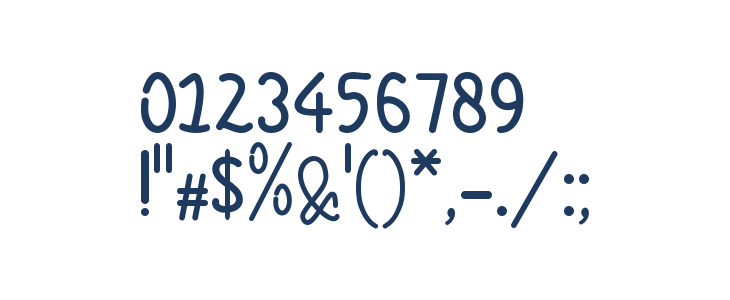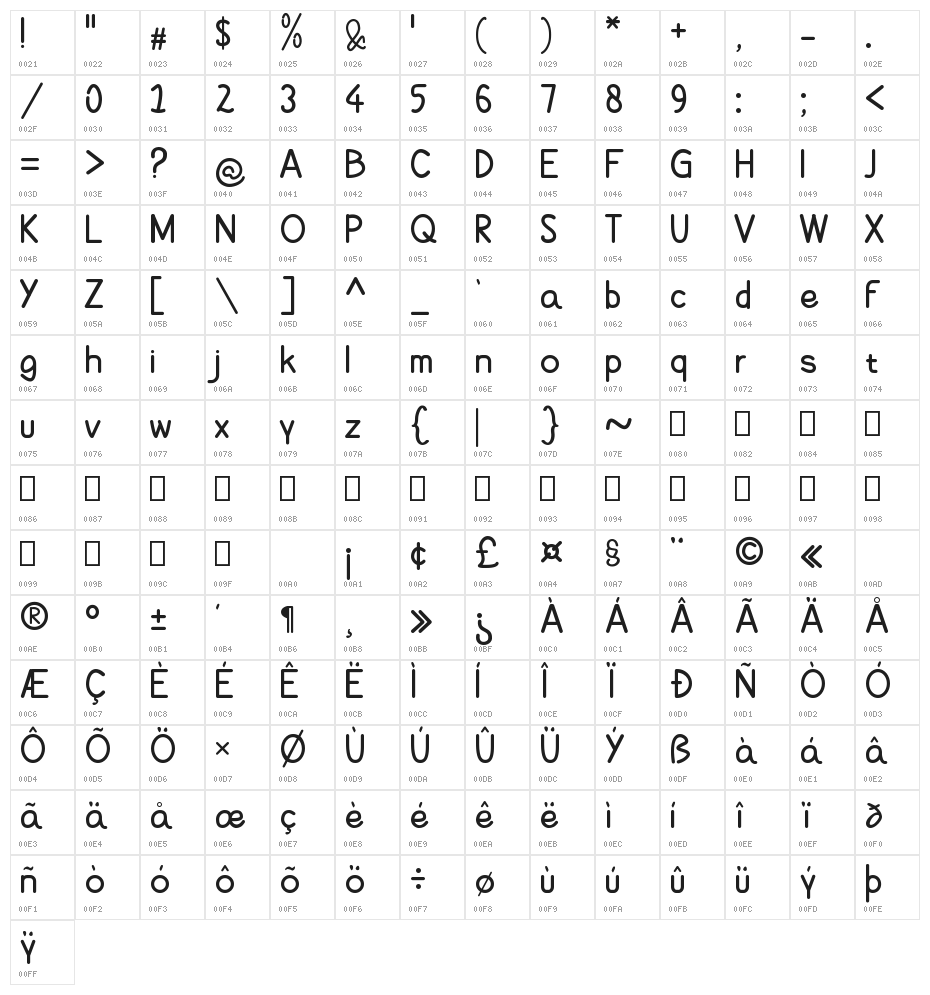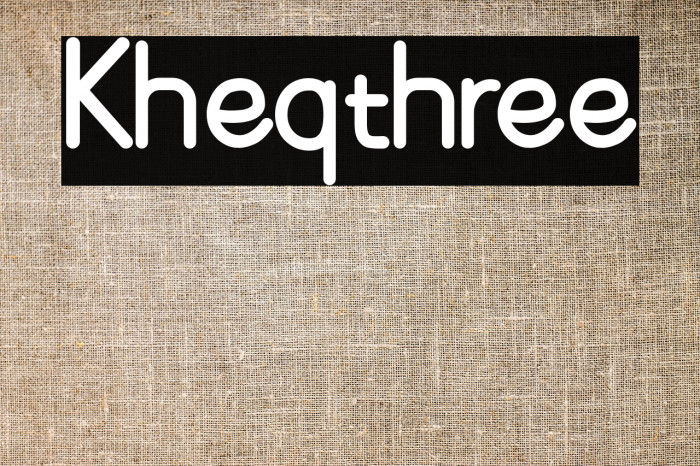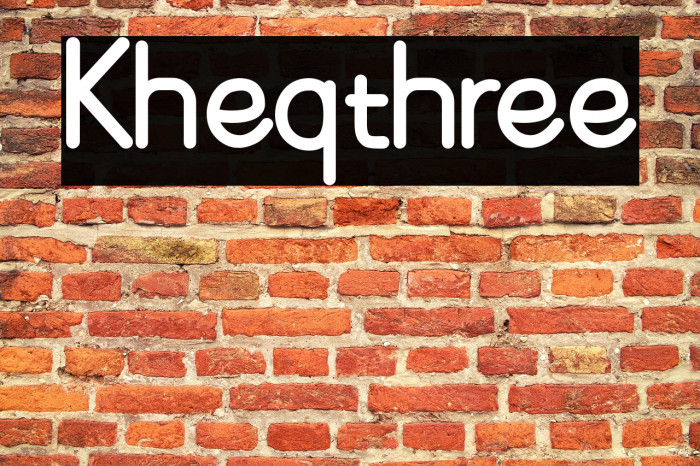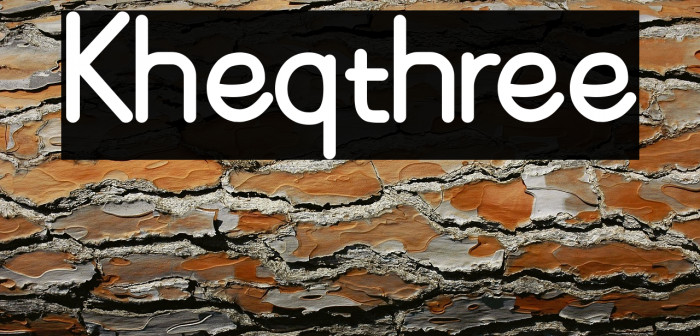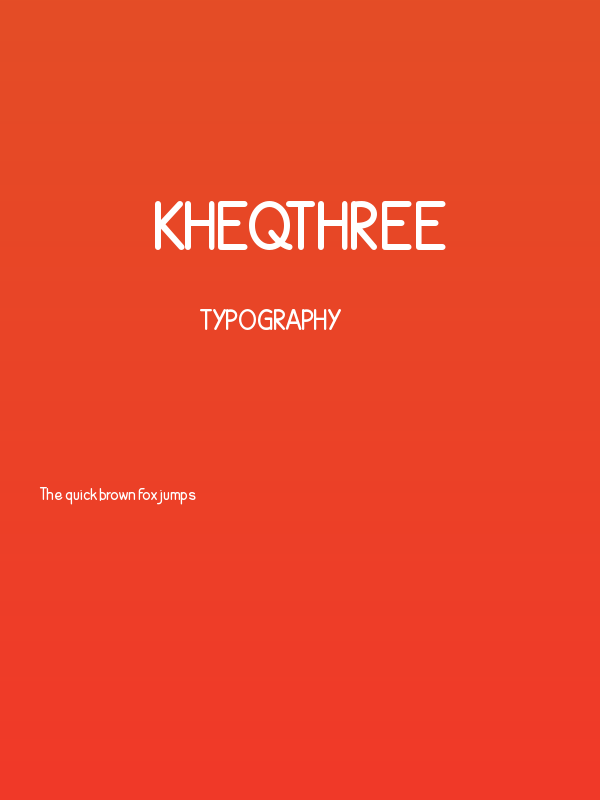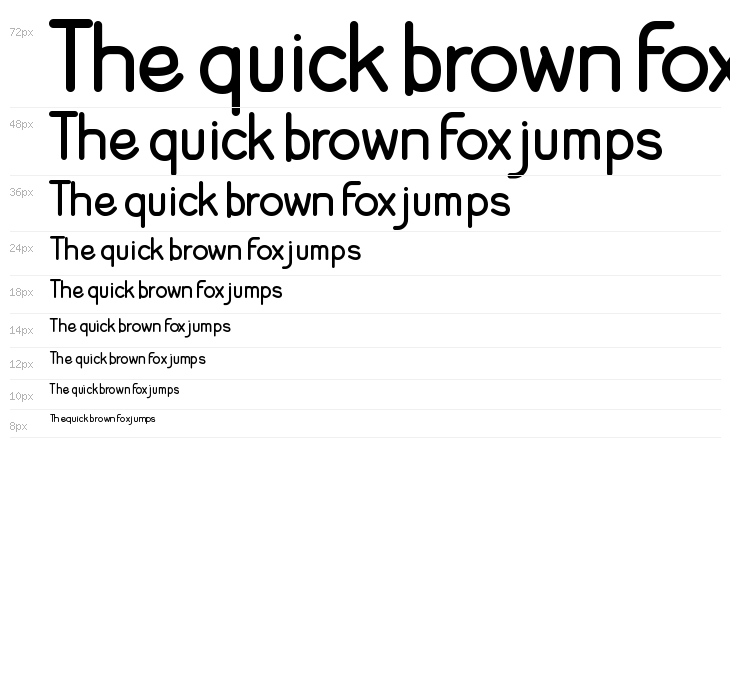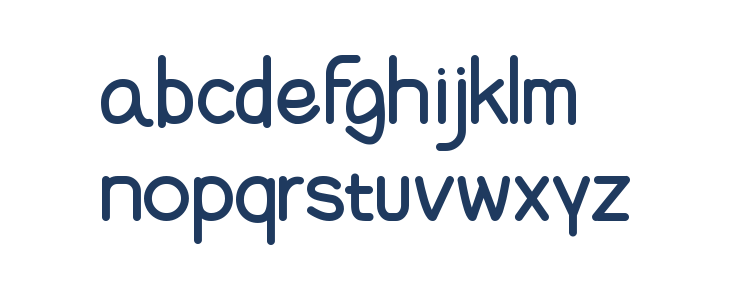
Kheqthree Font
Kheqthree Description
This font features a playful and rounded aesthetic, characterized by its smooth curves and consistent stroke width. The letters are evenly spaced, providing a clean and approachable appearance. The uppercase and lowercase letters maintain a uniform style, with rounded edges that give a friendly and modern feel. The numerals and special characters follow the same design principles, ensuring a cohesive look across all elements. This font is versatile, suitable for both digital and print media, and can be used to convey a sense of warmth and approachability.
| Use Case | Headlines, Logos, User Interfaces |
| Proposed Projects | Ideal for children's books, playful branding, casual invitations, and friendly user interfaces. |